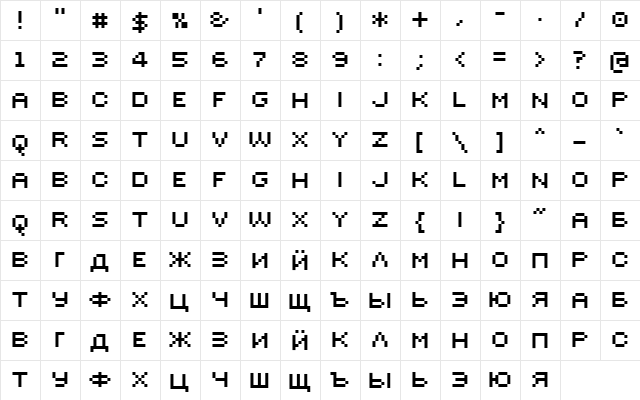
Sevenet 7 Cyr Regular
| Designer | Sevenet & Dubina Nikolay |
Design Context for Sevenet 7 Cyr Typeface
Sevenet 7 Cyr is a composed and adaptable typeface that performs quietly and consistently across a wide range of design contexts.